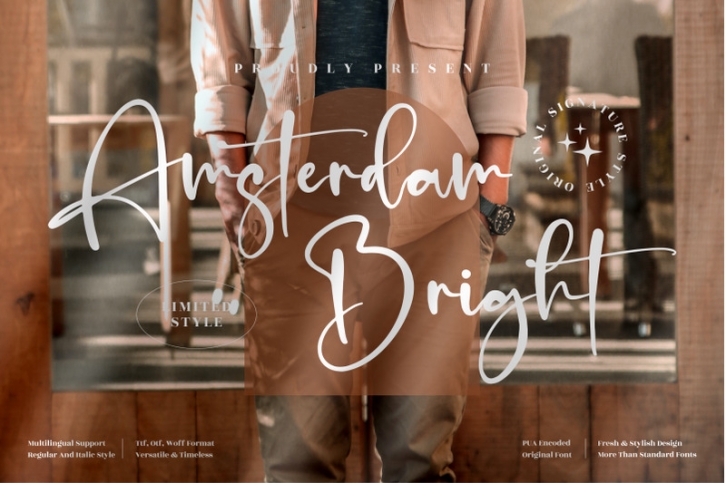
Amsterdam Bright - Stylish Signature Font, from Perspectype Studio, is a premium signature font, suitable for any projects such as: logos, branding projects, homeware designs, product packaging, mugs, quotes, posters, shopping bags, t-shirts, book covers, name card, invitation cards, greeting cards, label, photography, watermark, special events, and all your other luxury projects that need a premium signature taste.
Ligature, Alternate & Swashes